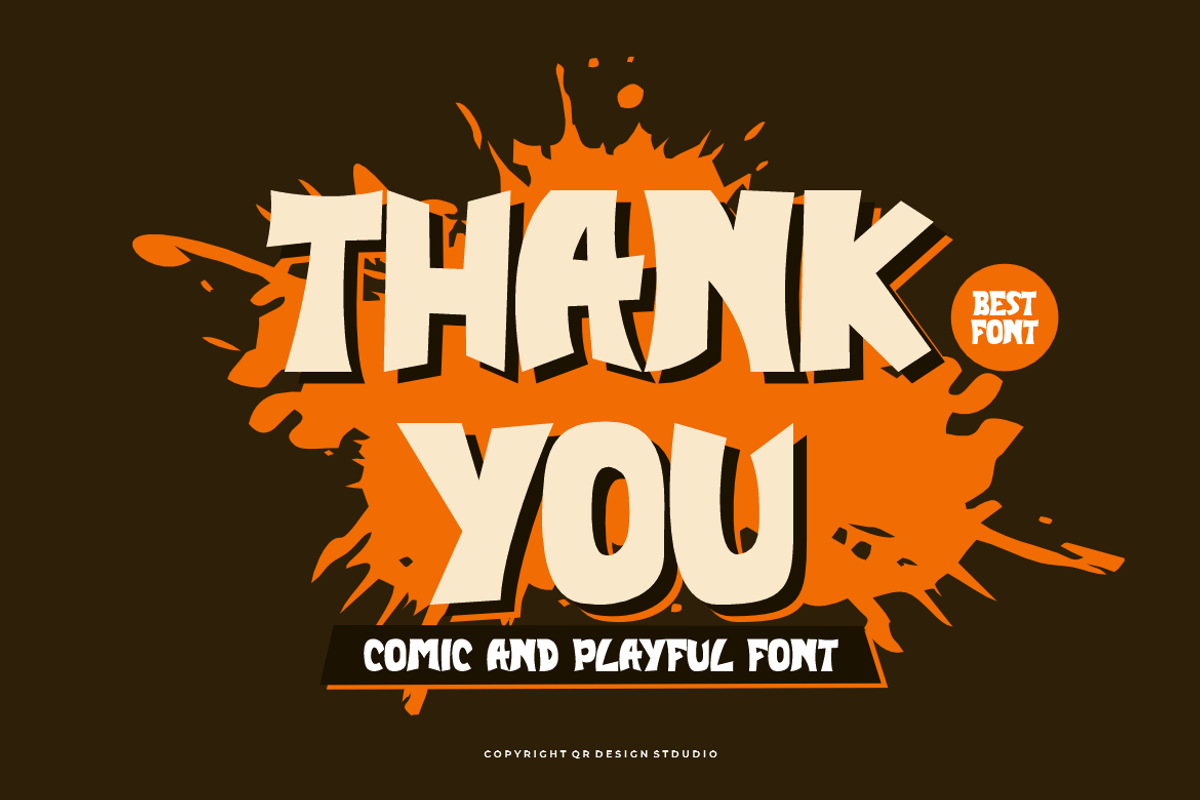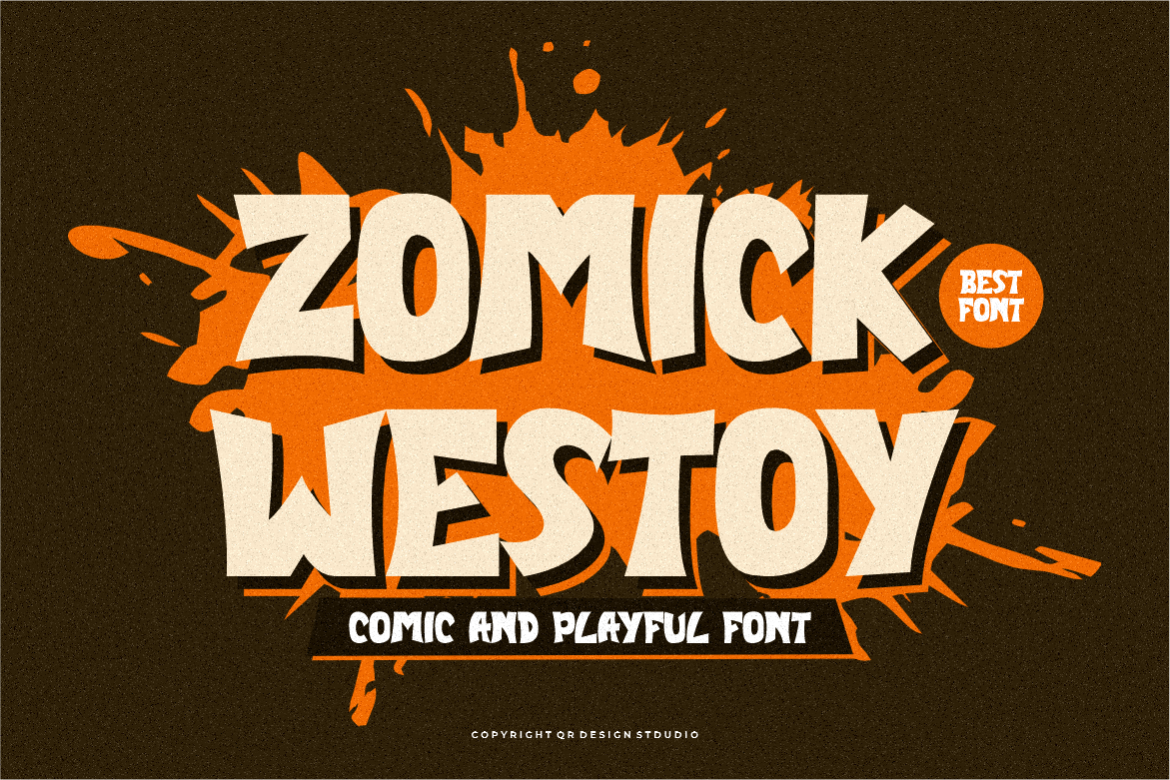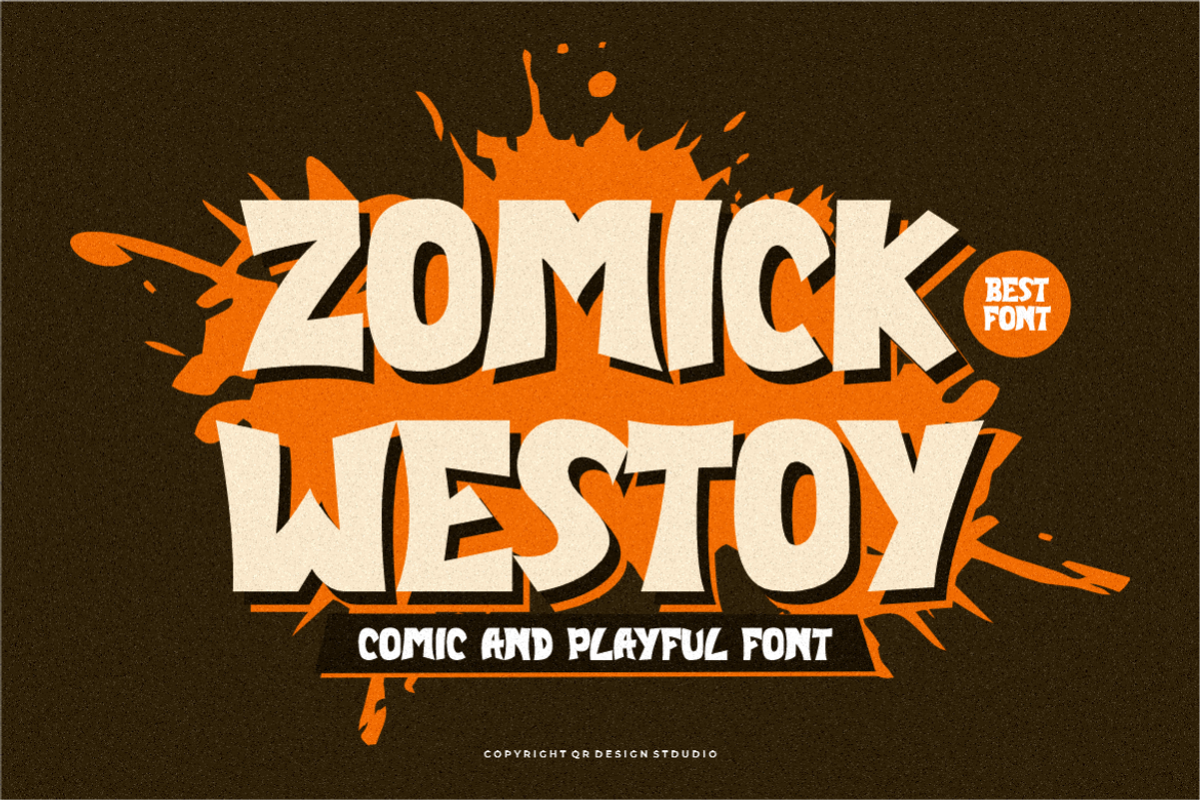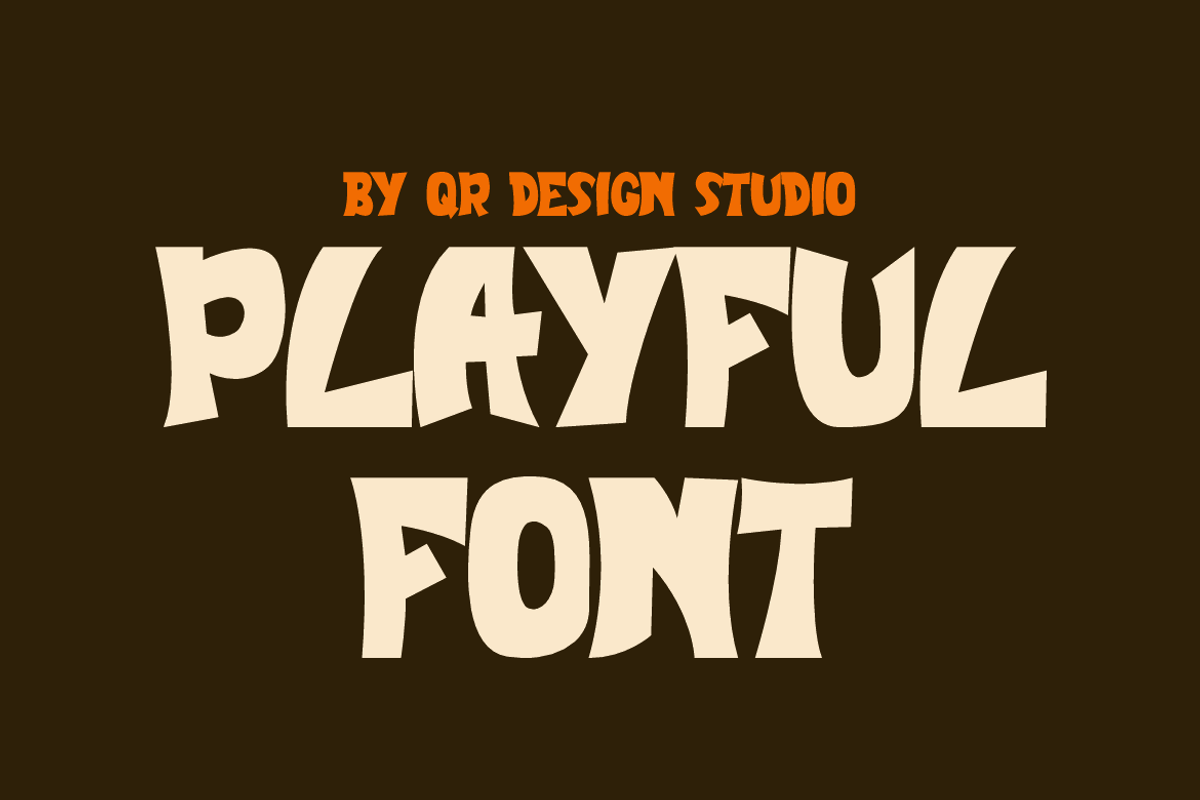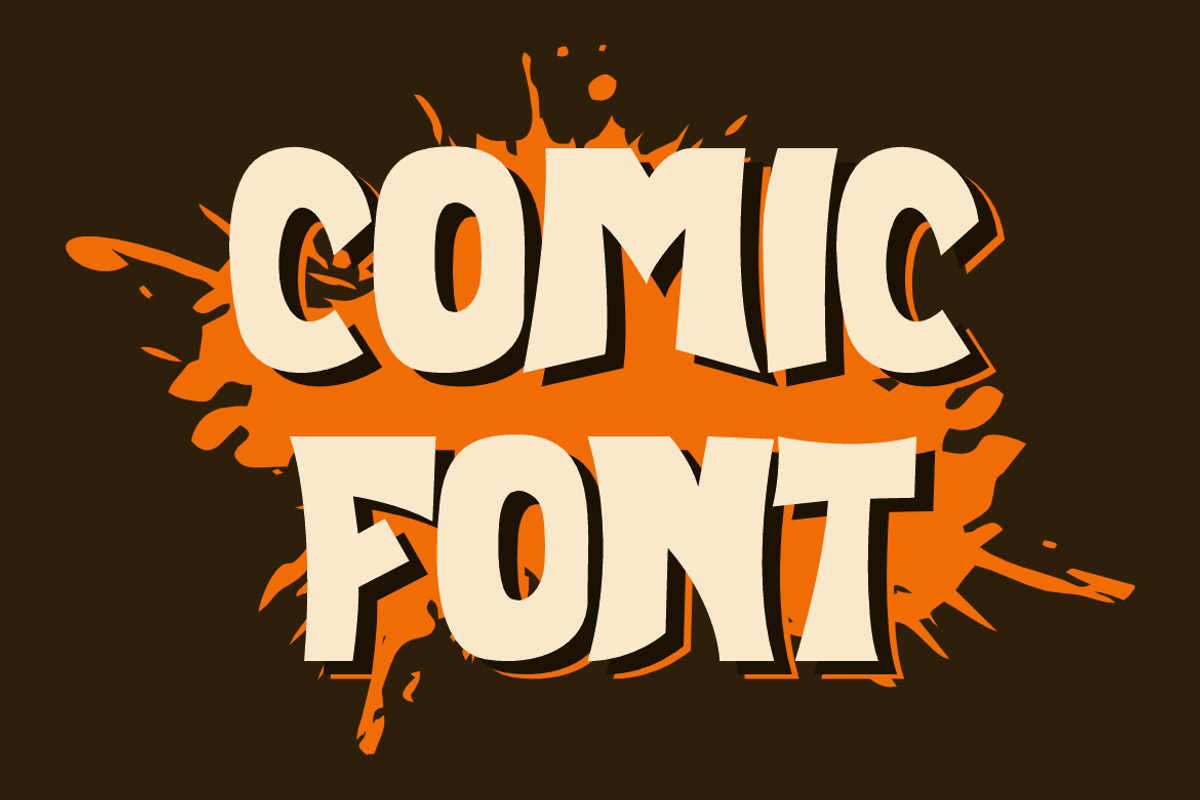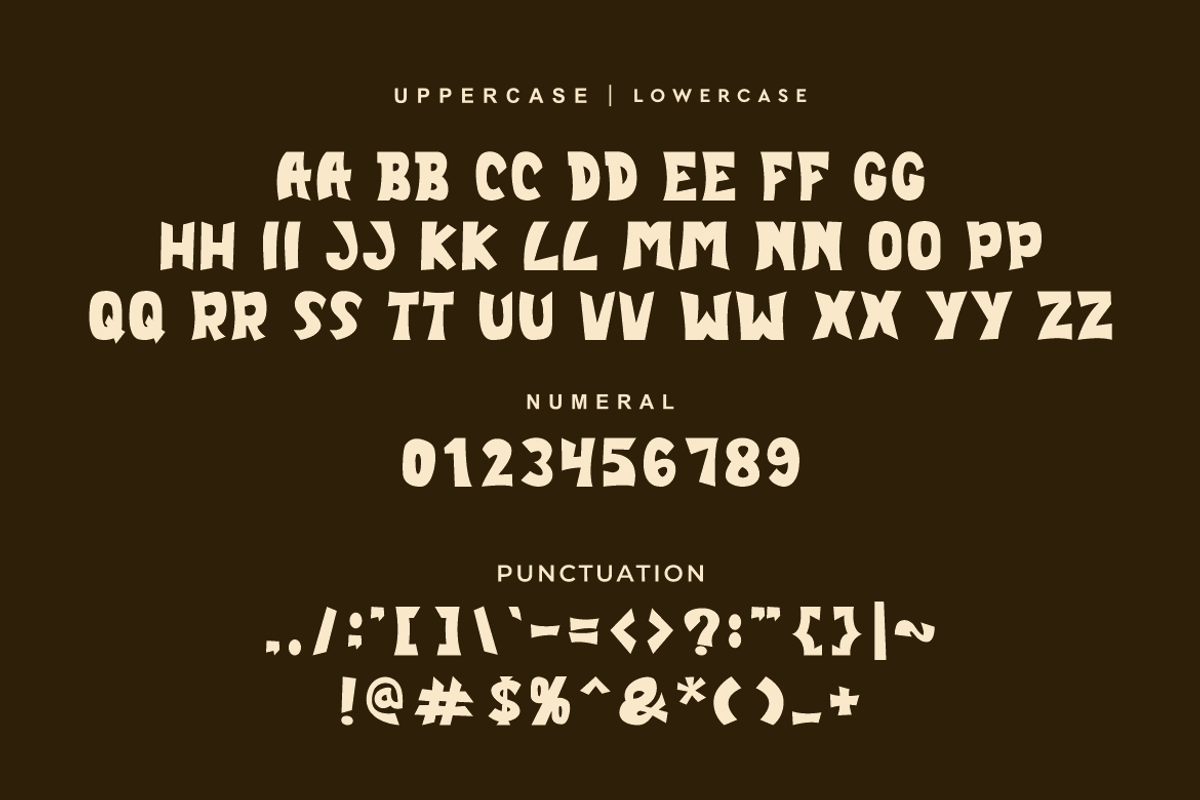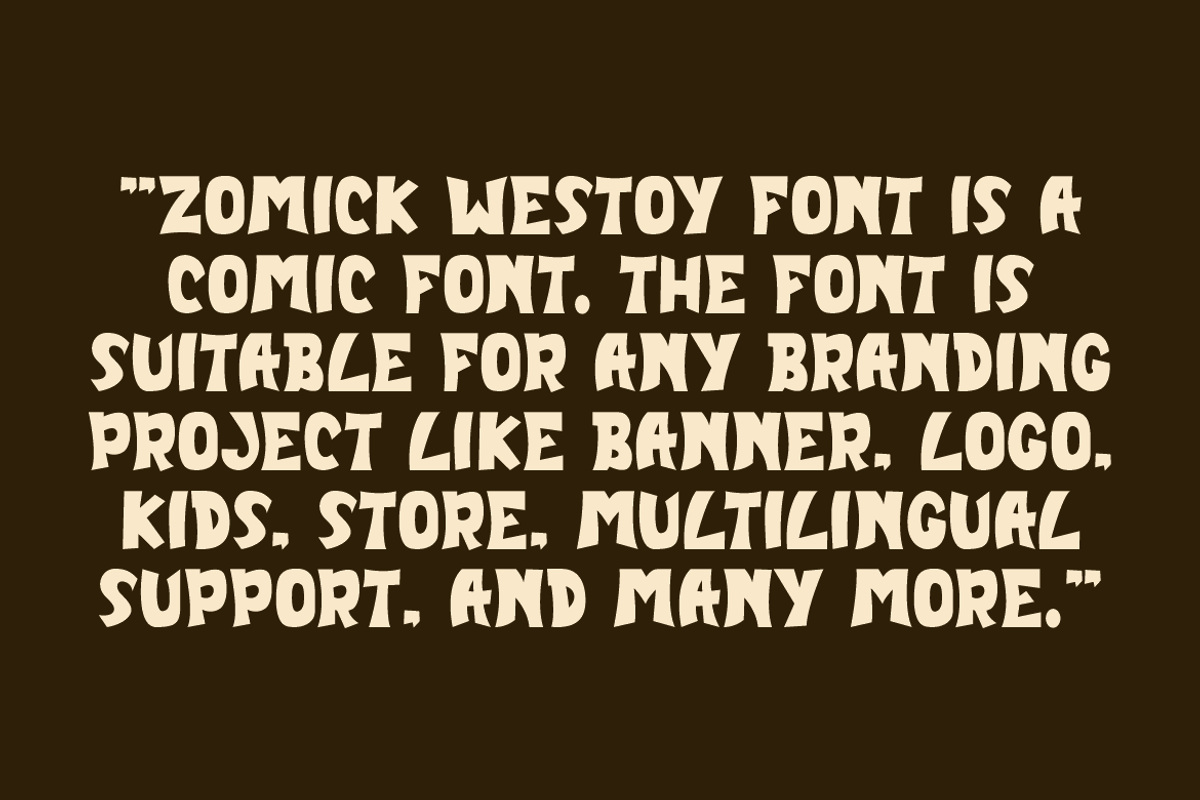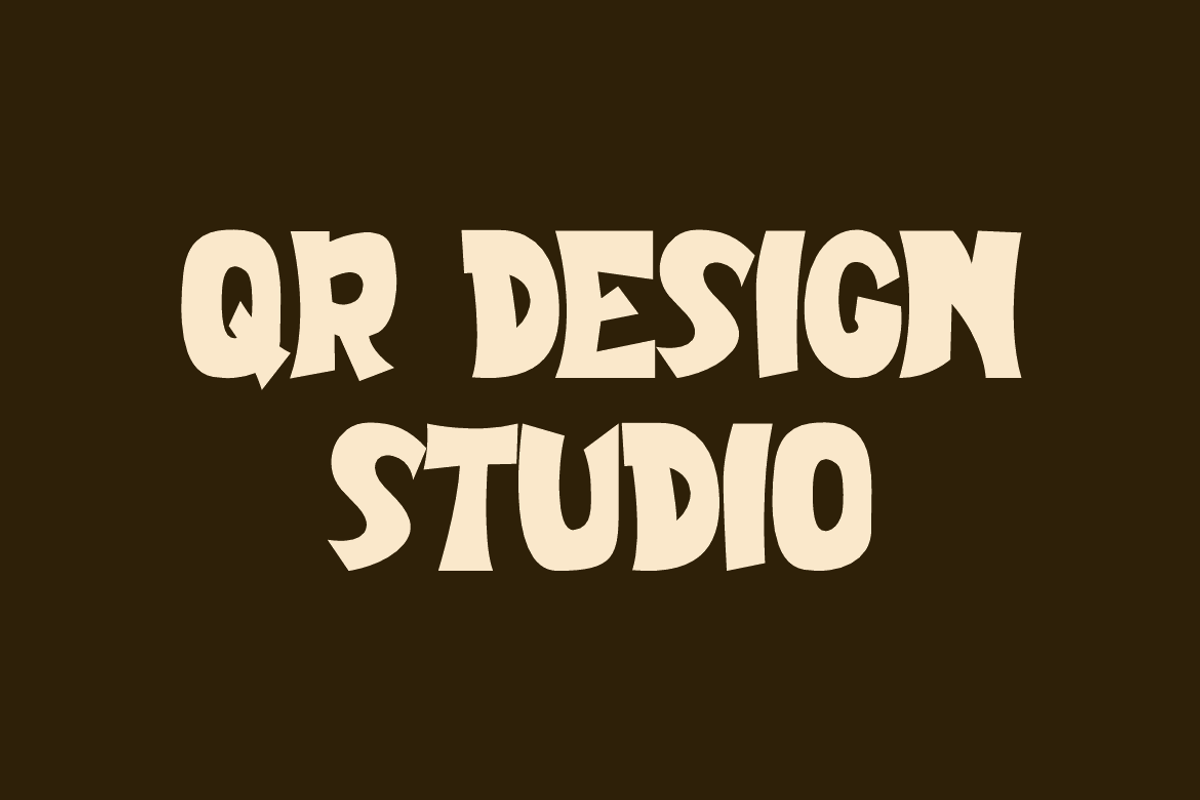
Zomick Westoy - Comic Font
Zomick Westoy Font is a comic and authentic display font. The font is suitable for any branding project like poster, logo, sport, and many more. Outstanding in a wide range of contexts.